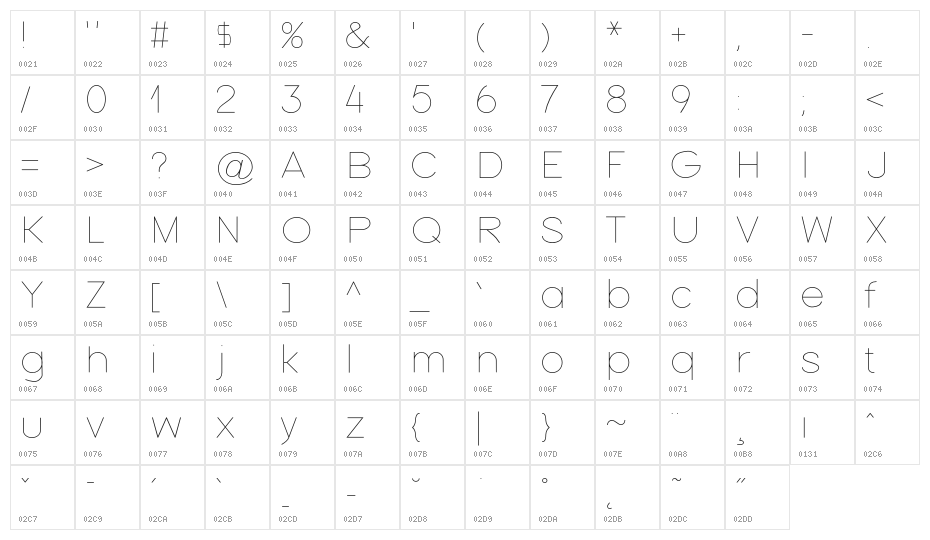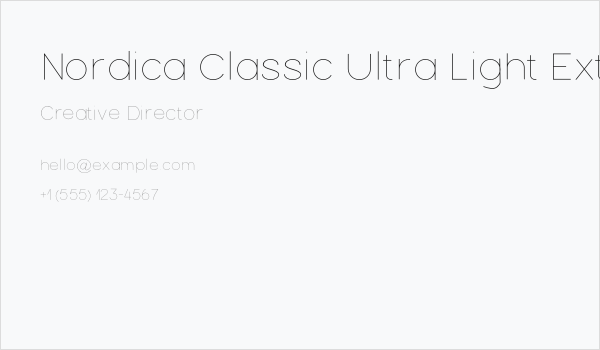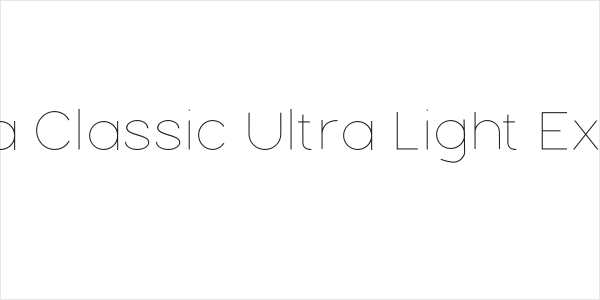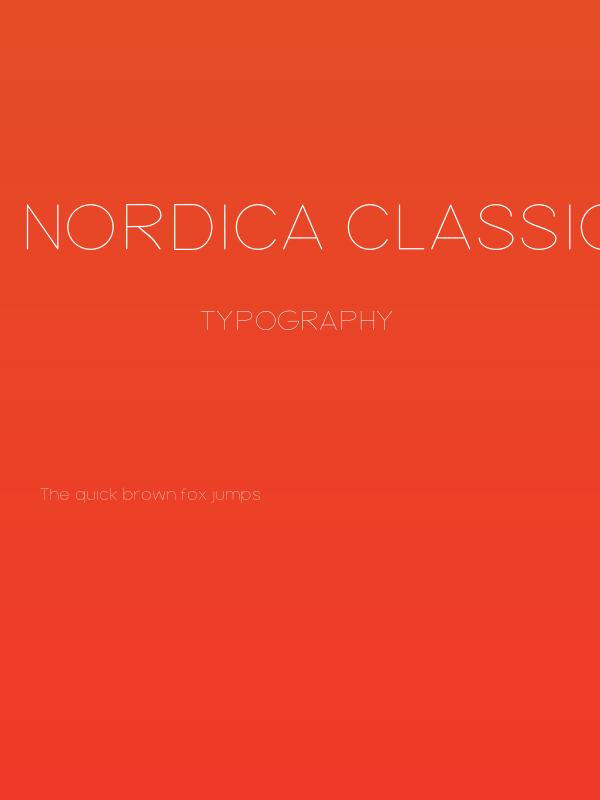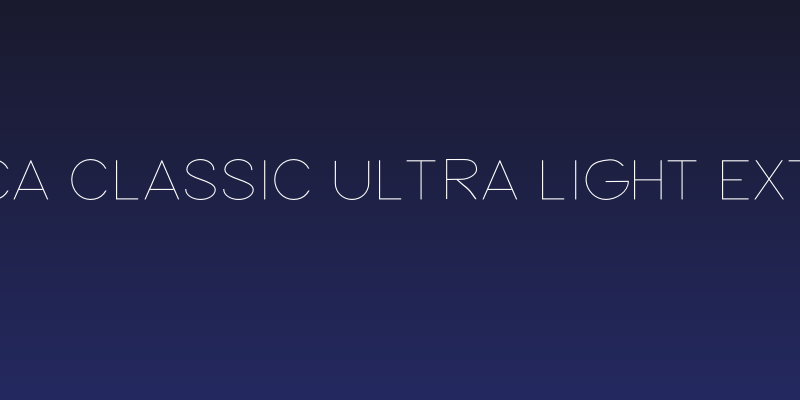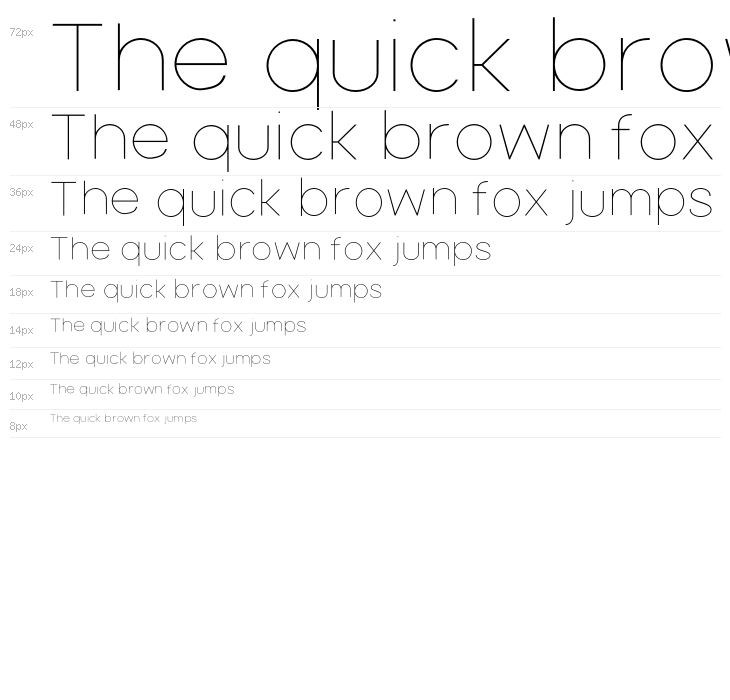
Nordica Classic Ultra Light Extended Font
Nordica Classic Ultra Light Extended Description
This font features a sleek and ultra-light design, characterized by its extended width and minimalistic aesthetic. The characters are constructed with thin, consistent strokes, giving it a modern and airy feel. The uppercase and lowercase letters maintain a uniform height, contributing to a clean and organized appearance. The numerals and special characters are designed with the same thin lines, ensuring a cohesive look across all elements. This font's simplicity and elegance make it suitable for a variety of design applications where a contemporary and refined style is desired.
| Proposed Projects | Ideal for modern branding, minimalist posters, elegant invitations, and sleek website headers. |